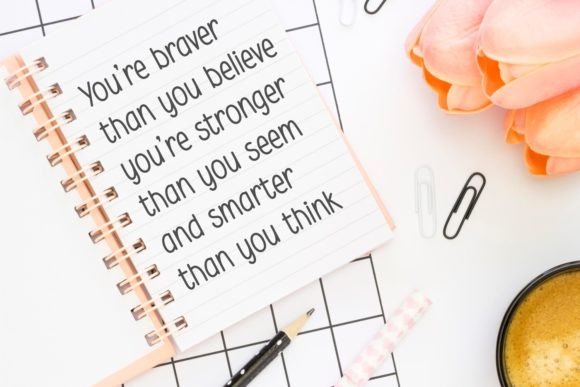
Stylish Teacher Font
Introducing Stylish Teacher, an adorable handwritten font that breathes vibrancy into your design concepts. Bursting with versatility, this font adds a delightful touch to displays and is perfect for enhancing school projects, decals, children’s signage, personalized notes, and digital content. A creative powerhouse, Stylish Teacher font enlivens lettering initiatives, paving the way for limitless innovative combinations.